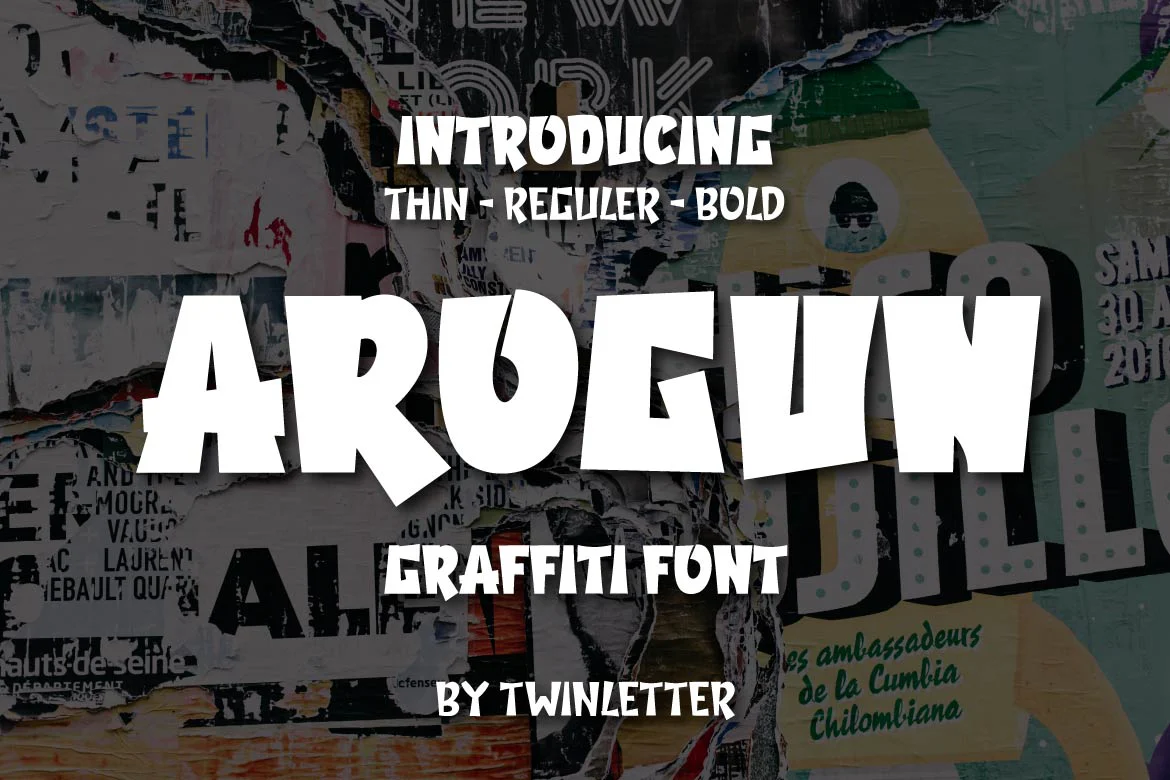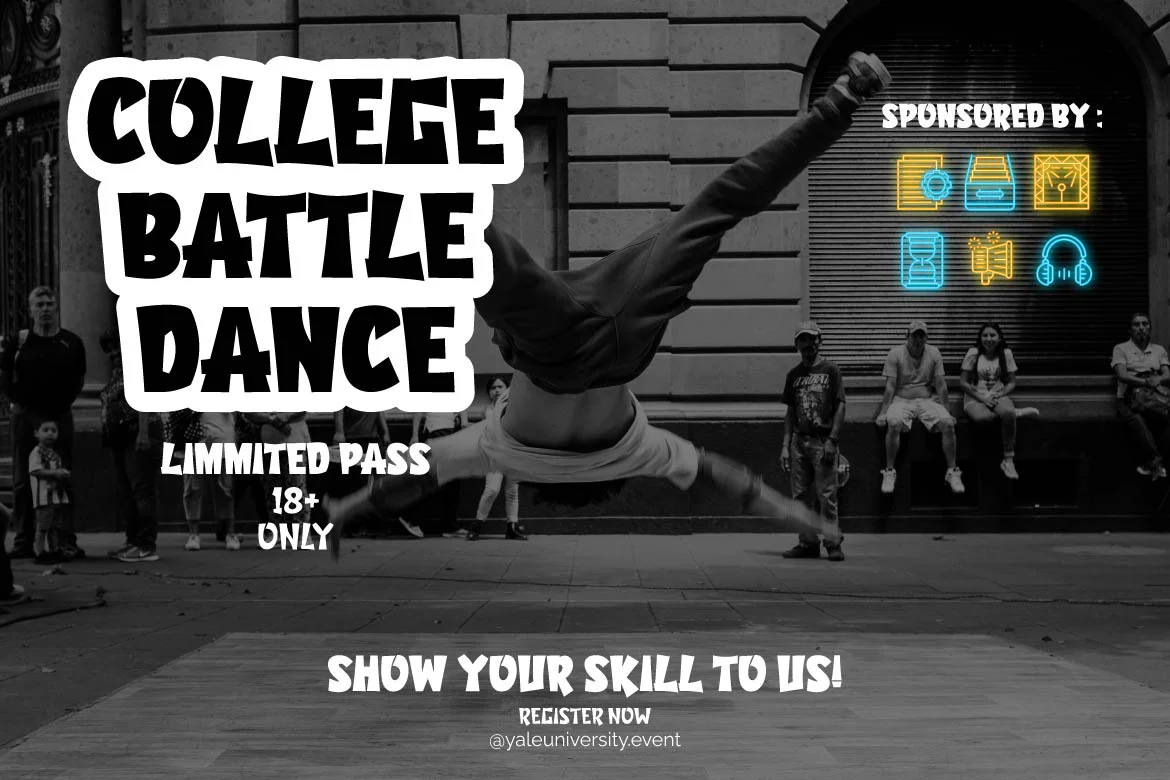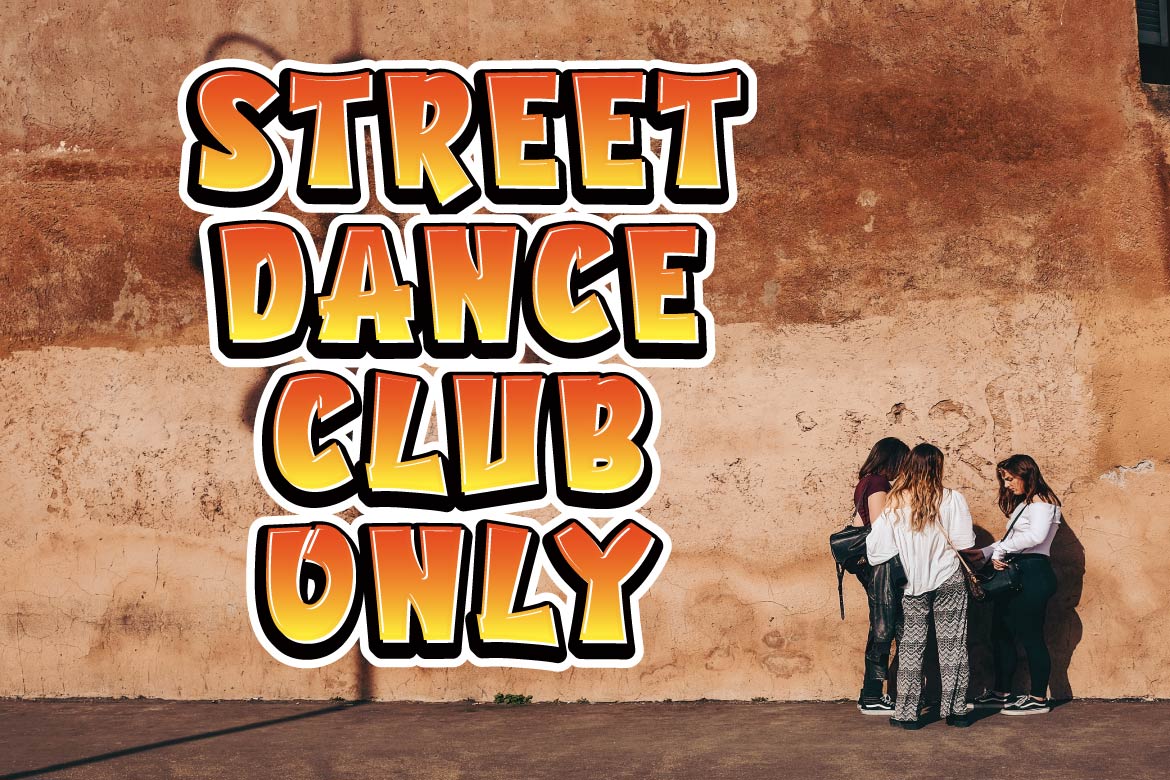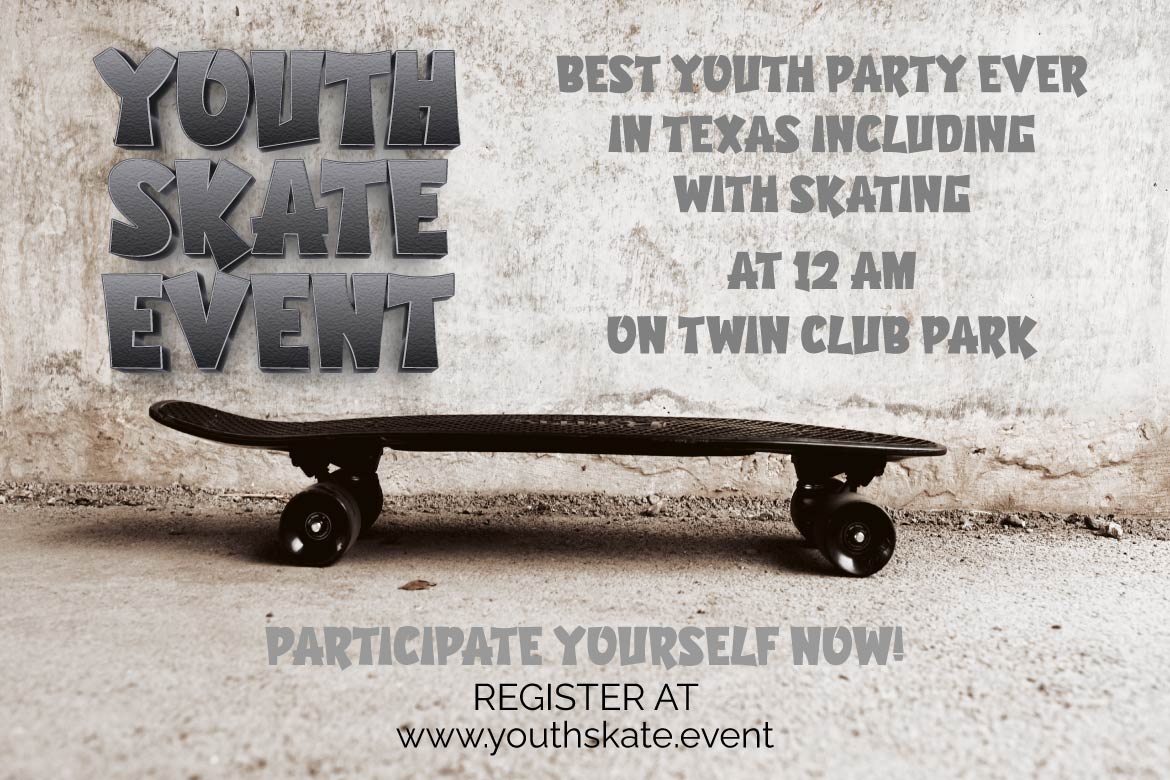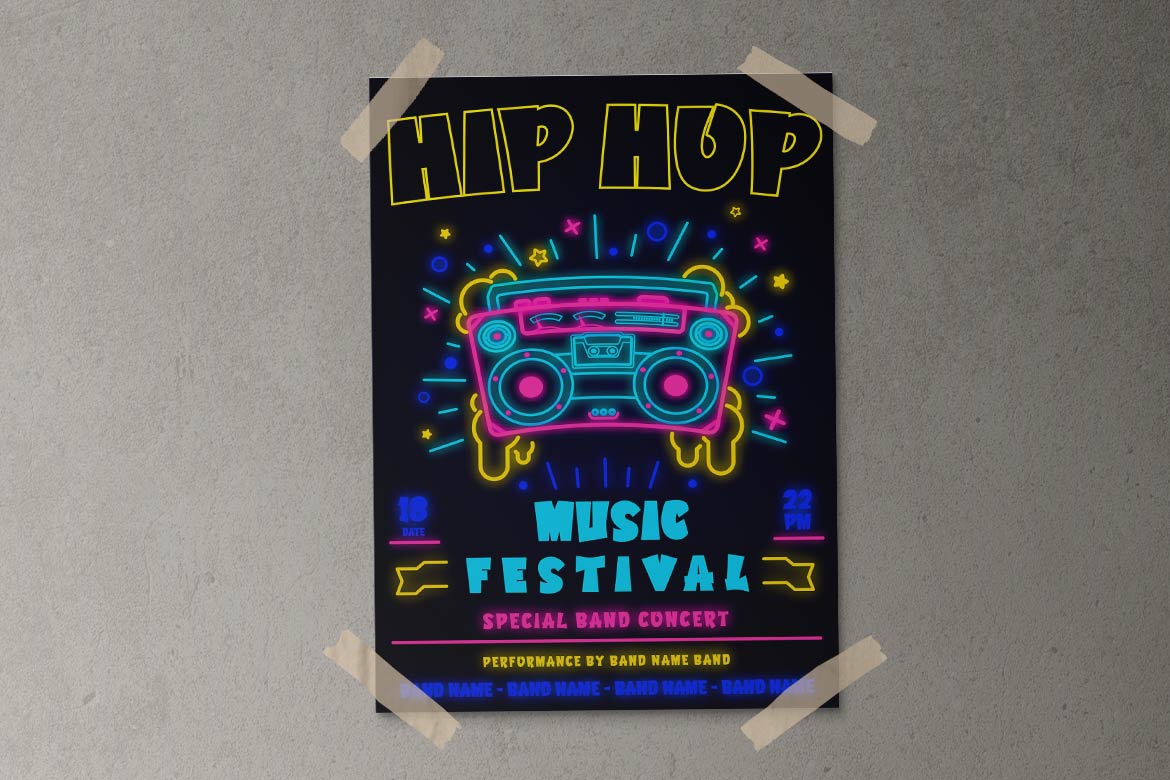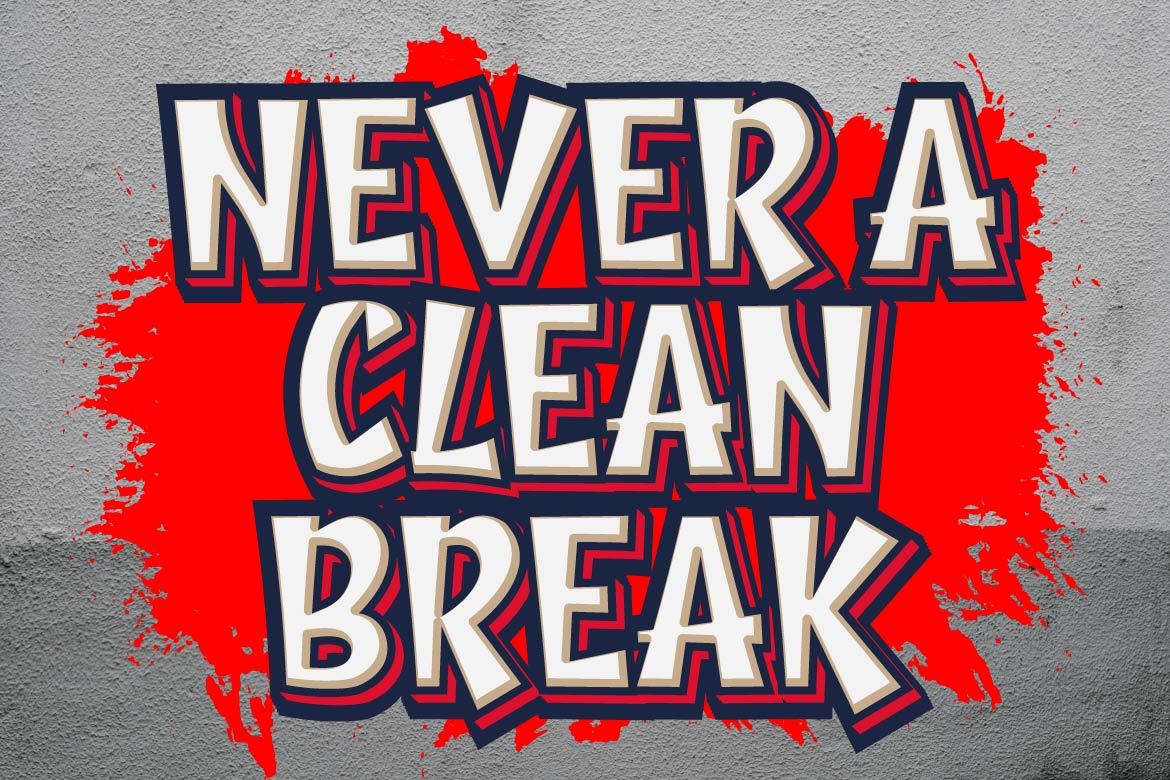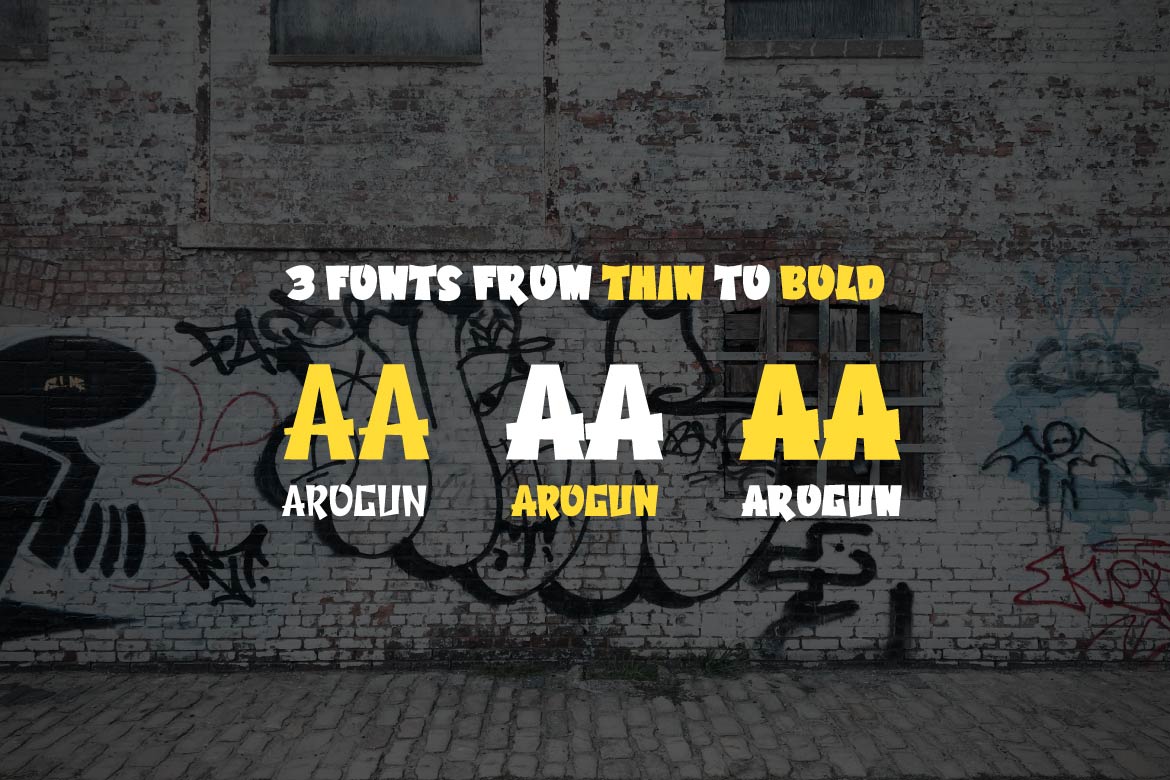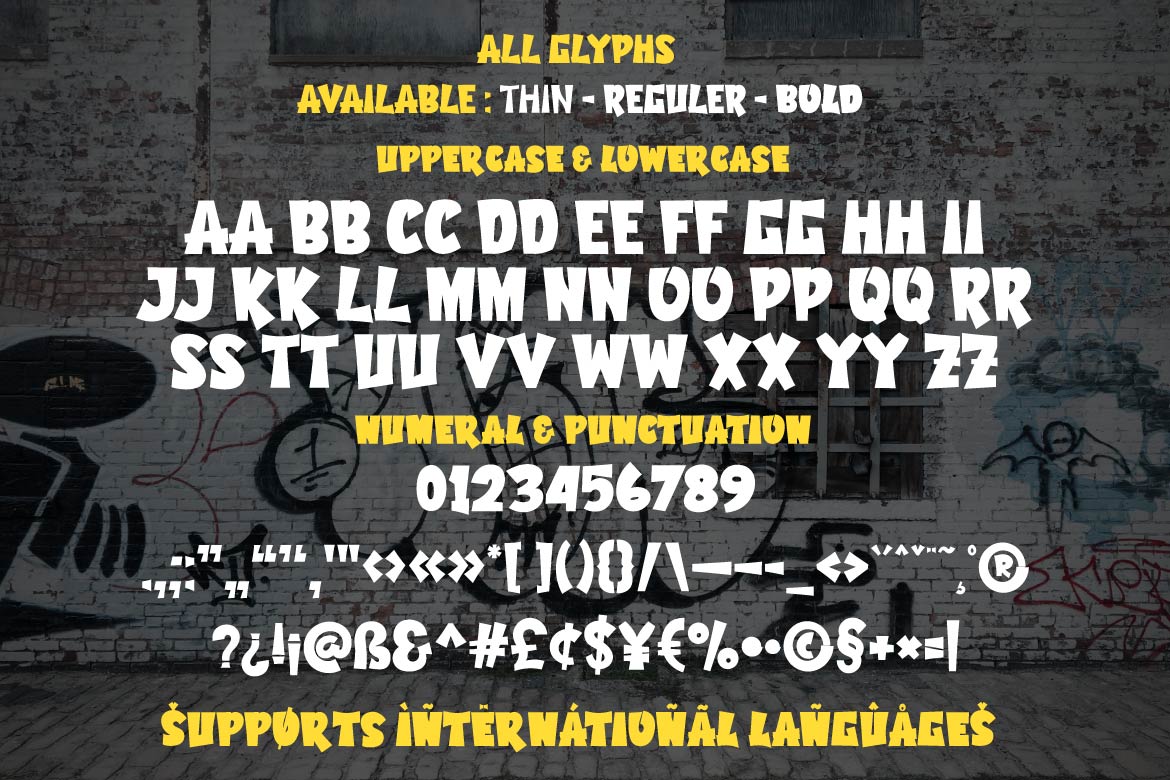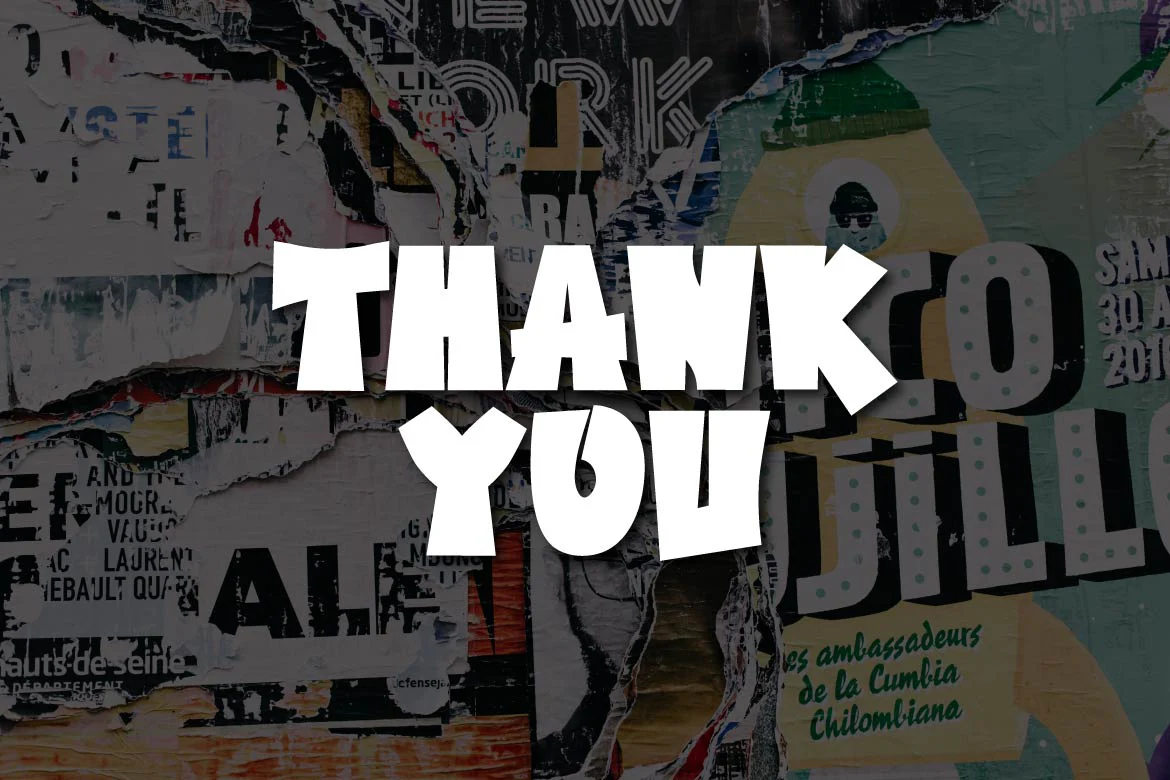
Arogun - Display Graffiti Style Font
Arogun is a display typeface with a unique and amusing appearance. It has a lovely and clean shape.
This typeface comes in three families to make it easier for you to use in your unique projects.
Everyone who sees this typeface will be impressed by its distinctive, attractive, and spectacular appearance if you use it in your various projects, whether it’s an event or not. Your project will be more exquisite, professional, and one-of-a-kind than it has ever been.
This graffiti font is great for product logos, poster titles, headlines, packaging, film titles, logotypes, gorgeous writing, and trendy graffiti designs, among other things.